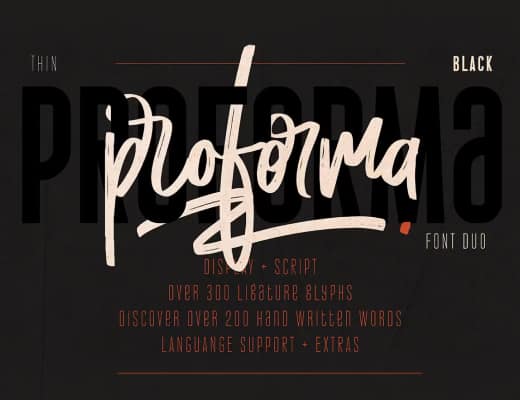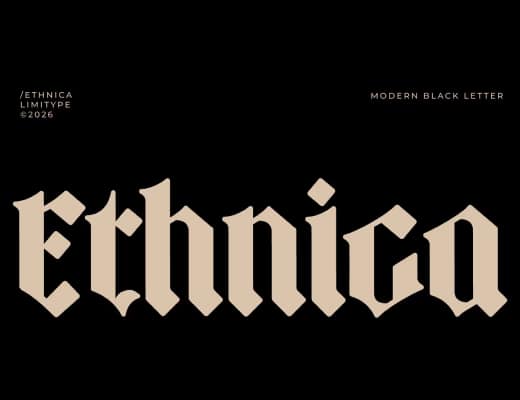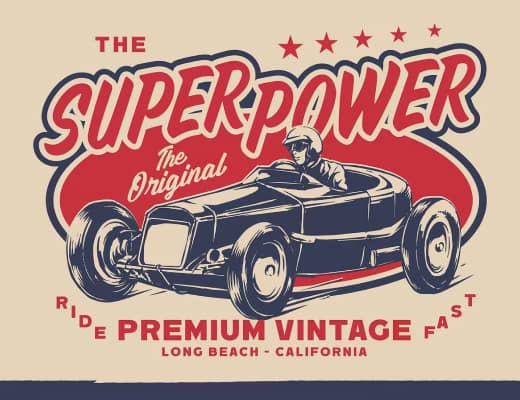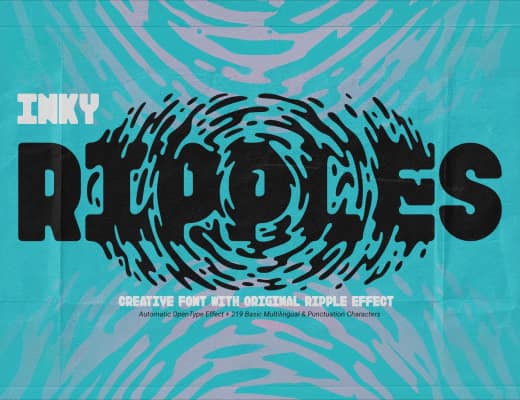
A bold display font featuring a striking ripple effect that brings motion and energy to every word. Designed with dynamic alternates and layered glyphs, it creates fluid, wave-like distortions that instantly stand out.
A blackletter font with unique form, crafted to deliver a strong historical presence with a contemporary twist. Its sharp angles, dramatic strokes, and distinctive letter structures create a bold personality.
A bold retro display collection inspired by classic racing posters and vintage garage signage. The letterforms feature strong strokes, dynamic angles, and shapes that capture the spirit of speed and automotive culture.
Designed for editorial layouts, fashion campaigns, luxury branding, film posters, social media graphics, and premium packaging, this duo delivers the perfect balance between structure and spontaneity.